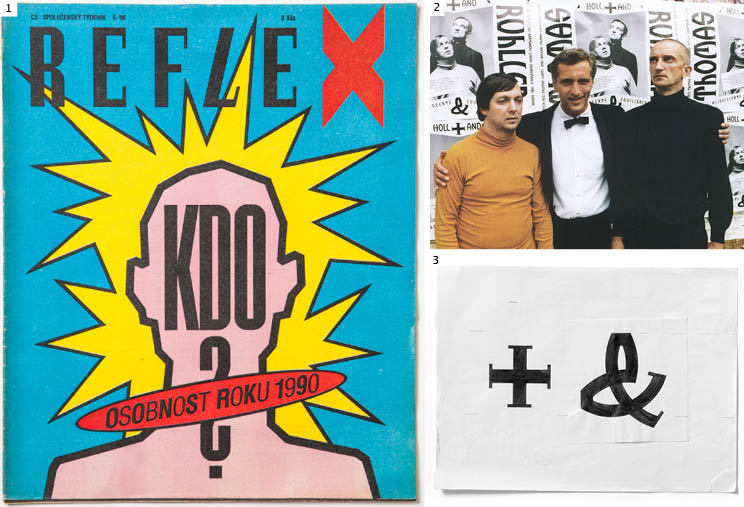
1/Reflex was designed by graphic design team, namely Pavel Beneš, Pavel Lev and Aleš Najbrt, for Reflex, a weekly magazine focusing on social, political and cultural commentary and issues that first went to print in 1990. Aleš Najbrt was a key figure at the magazine, simultaneously holding the posts of art director and editor-in-chief during the magazine’s formative years from 1990 till 1992.
The headlines of regular magazine columns were hand drawn in ink and were based on the logotype.
2/A duo of mime equilibrists, performing since the eighties under the name of Thomas & Ruhller, rightly deserves to be labelled “cult”, despite such emotive words being hyper-inflated these days. Thomas & Ruhller skillfully walk the tightrope above the abyss of “embarrassment” and are the embodiment of your boldest dreams.
3/Thomas & Ruhller is a display type inspired by theatre mastery and transforms sensual stage movement into two dimensions. Individual letters refer to famous figures from theatre and thus constitute a sort of “best of” theatre performance,